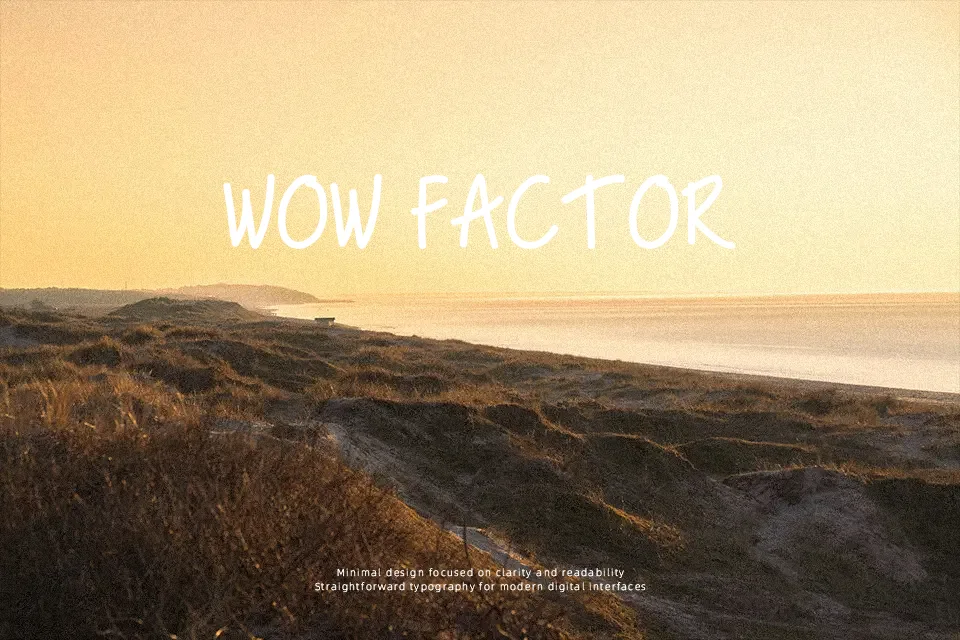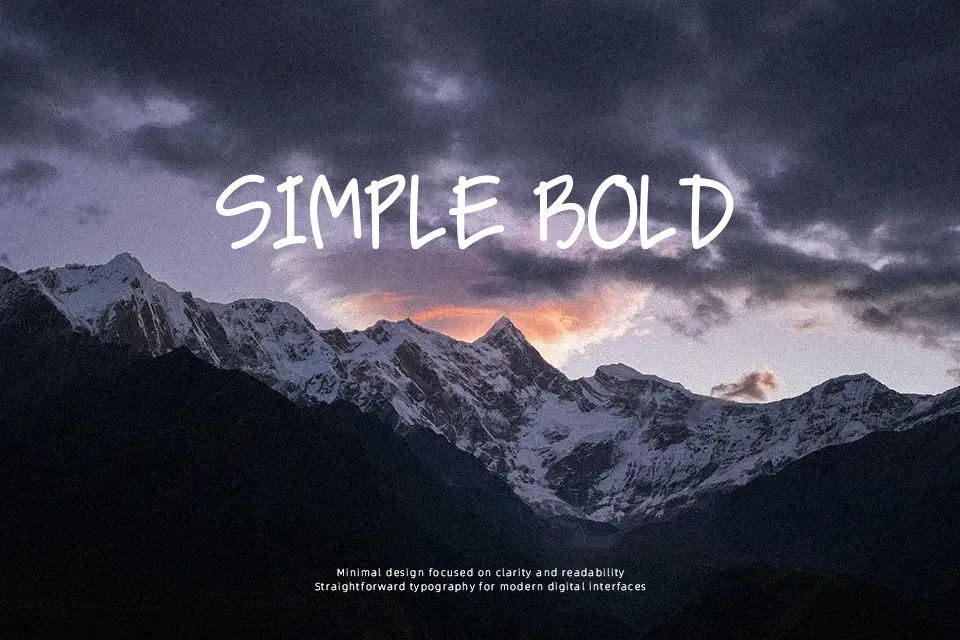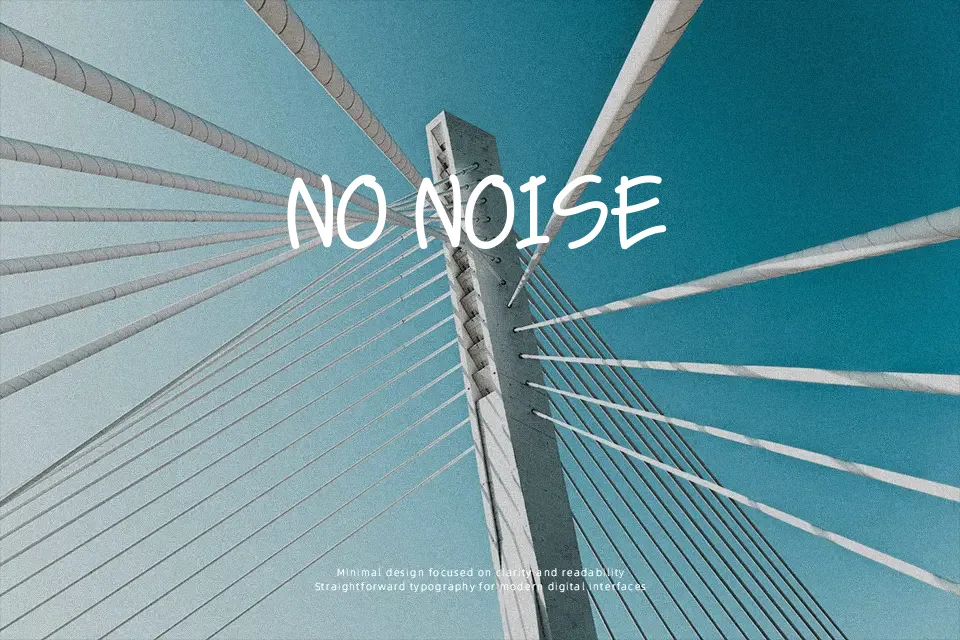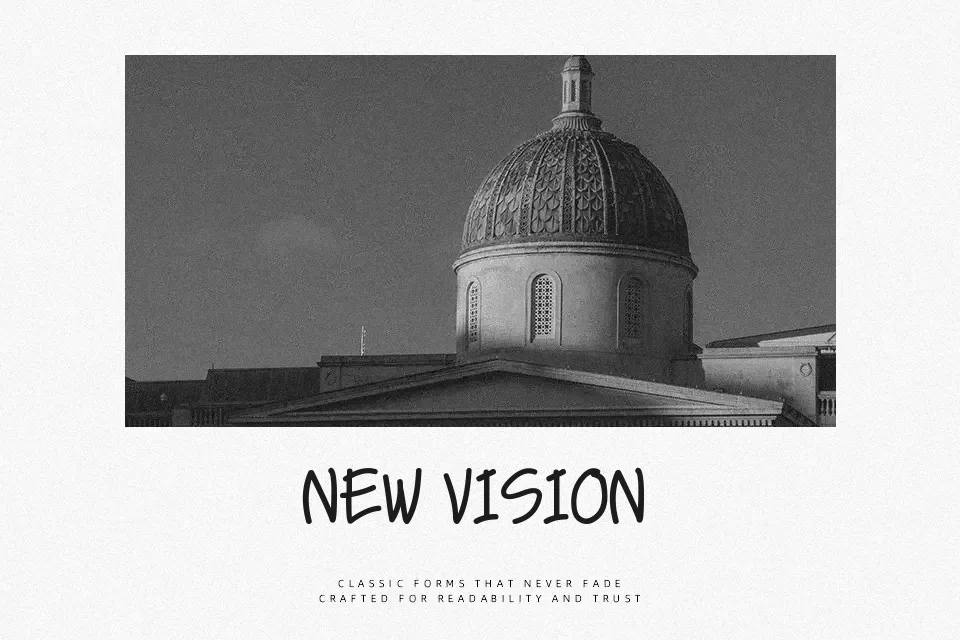
Nice Love The Simple Font Font
Designed by fontsandfashion
Nice Love The Simple Font uses soft, rounded shapes and a relaxed comic look that gives the letters a friendly, informal rhythm. The spacing appears fairly open, which helps the design stay clear in short headlines and small branding moments. Its strokes look even and uncomplicated, with proportions that lean more toward display use than body text. The font works best when it can breathe, while dense layouts and extended reading can feel less comfortable.
Best For: poster headlines, social media graphics, playful branding, packaging accents
Not Ideal For: long paragraphs, dense editorial layouts, small interface labels, legal documents
Perfect for branding, headline, and packaging, with a creative and comic style.